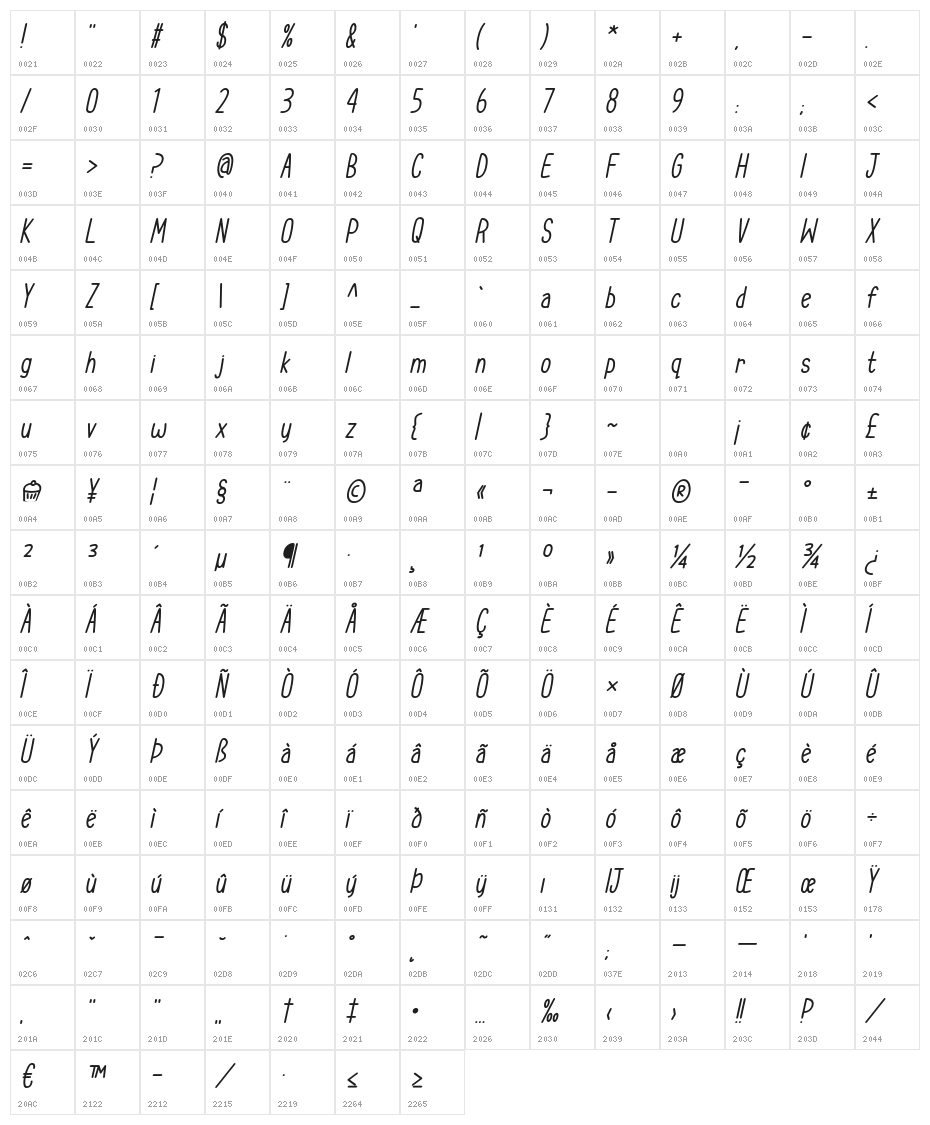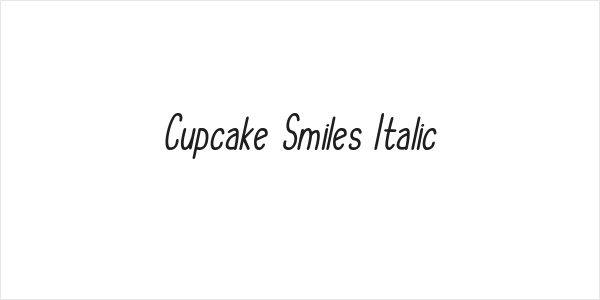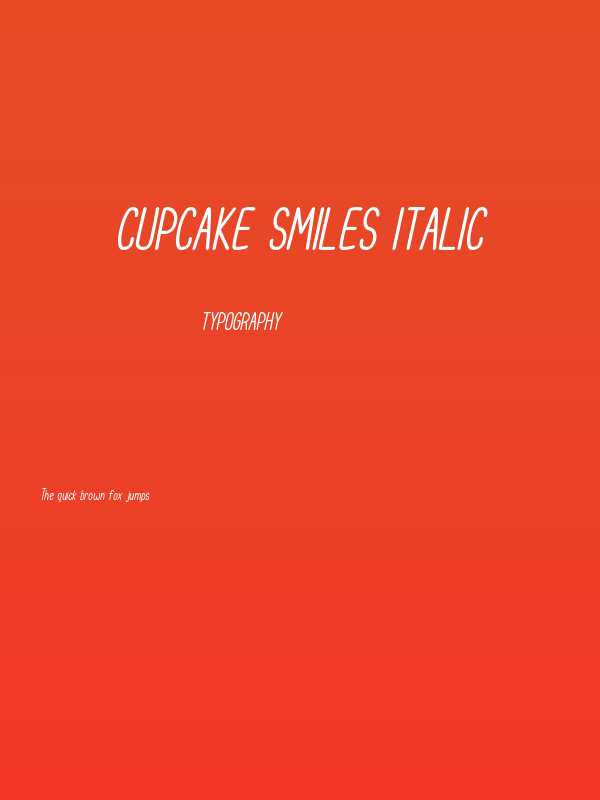
Cupcake Smiles Italic Font
Cupcake Smiles Italic Description
This playful and whimsical font features a handwritten style with a slight italic slant, giving it a casual and friendly appearance. The letters are rounded and smooth, with a consistent stroke width that maintains readability while adding a touch of personality. The uppercase and lowercase characters are well-balanced, and the numerals are clear and distinct. Special characters are included, enhancing its versatility for various design needs. The overall look is approachable and fun, making it suitable for projects that require a personal touch.
Overall StyleCasual
Use CaseHeadlines, Logos, Informal Text
Proposed ProjectsIdeal for greeting cards, children's books, playful branding, and social media graphics.